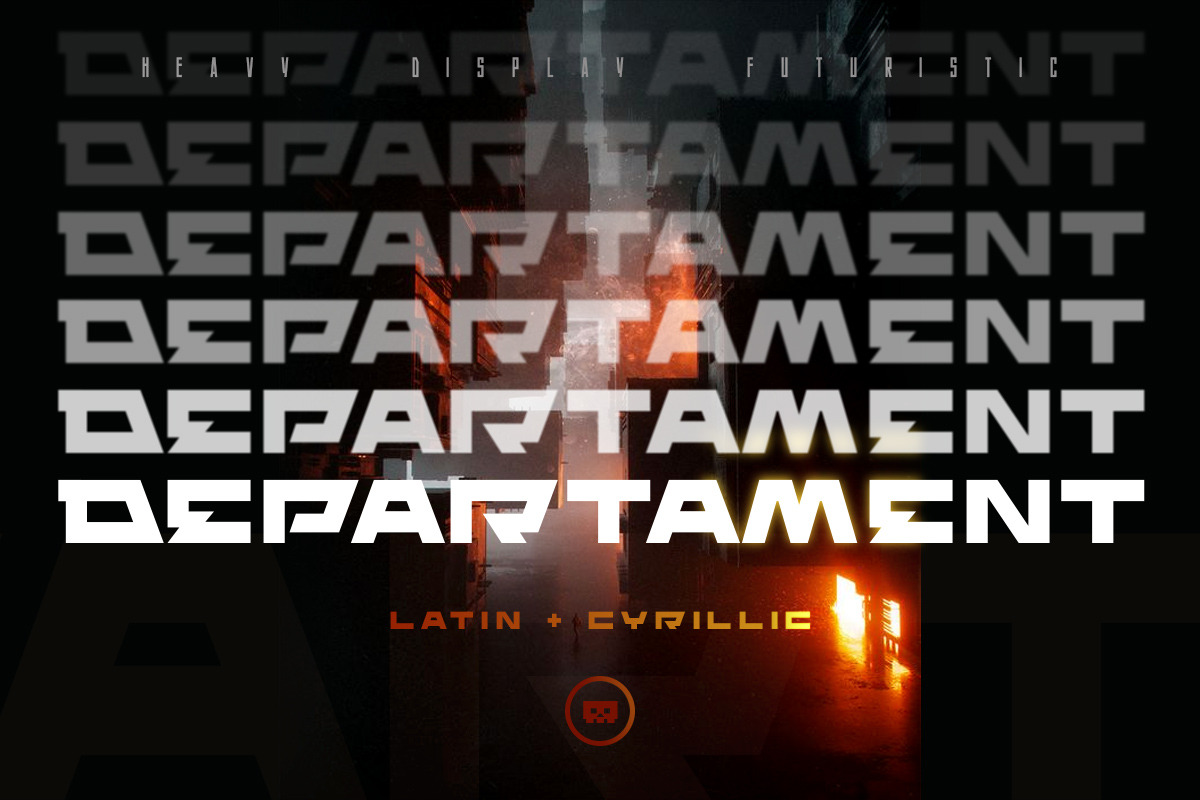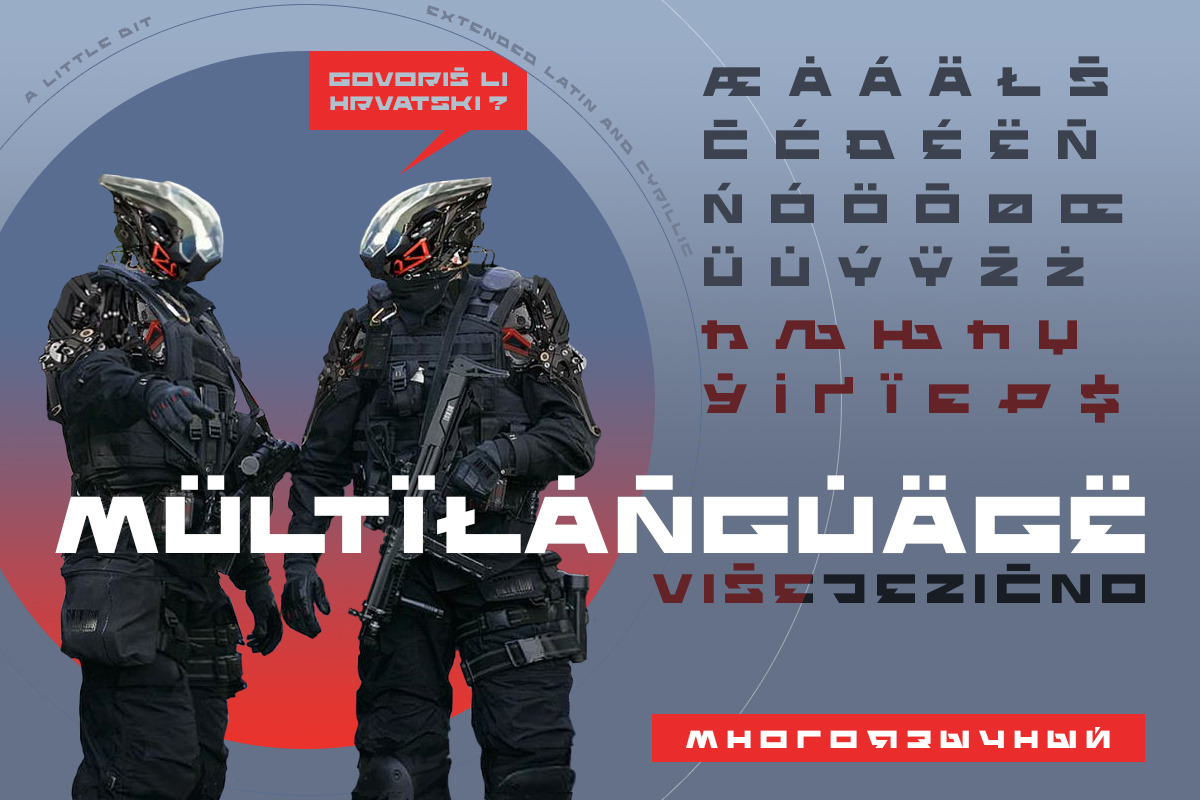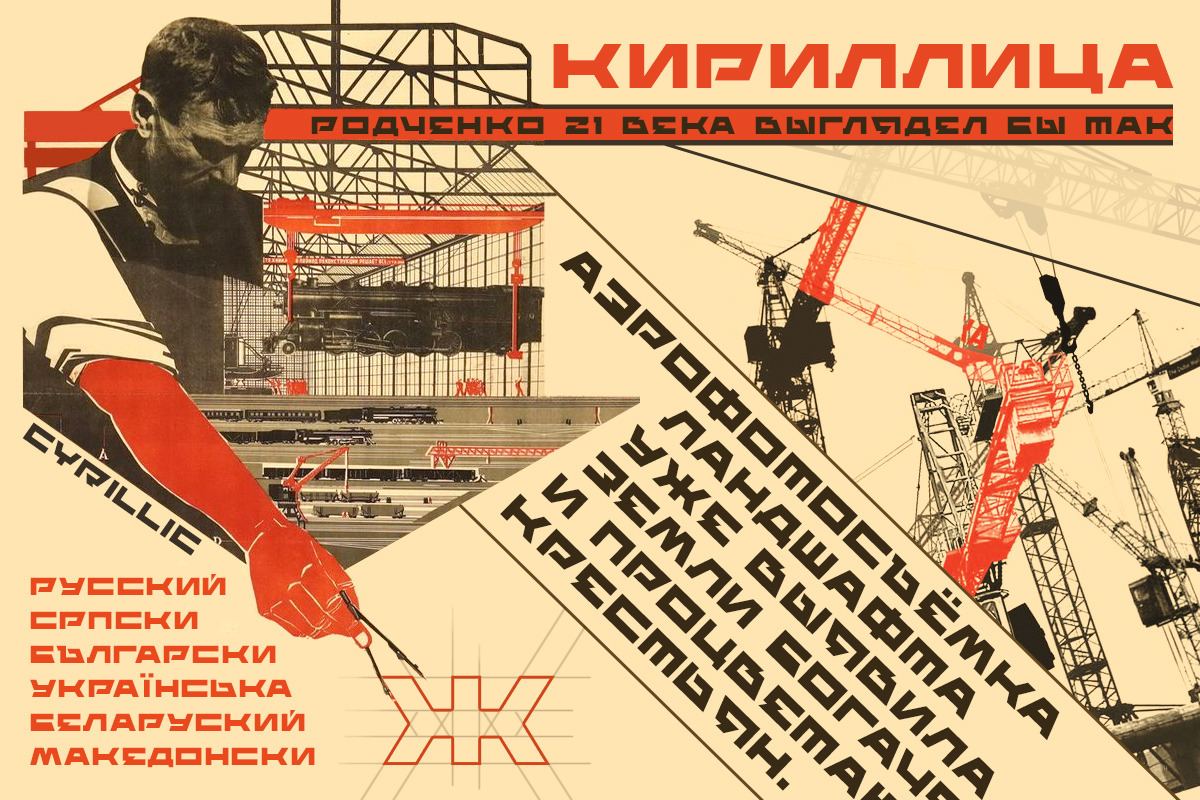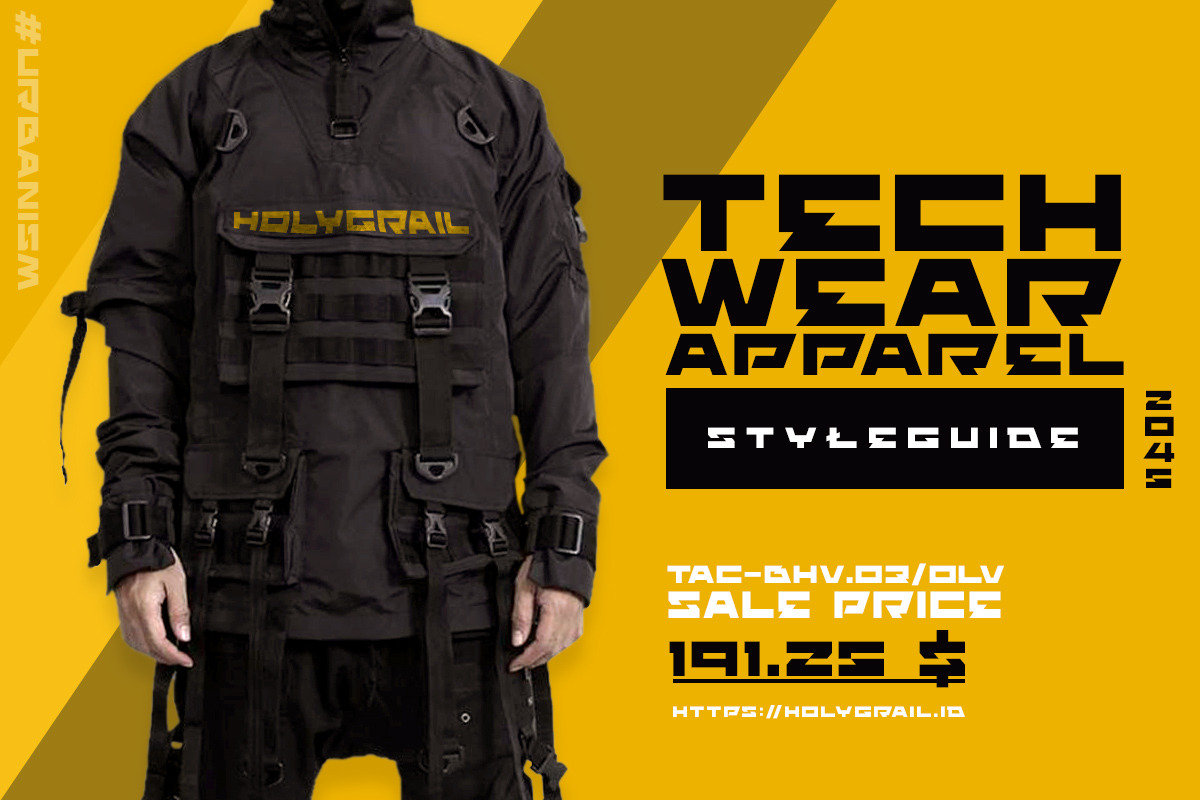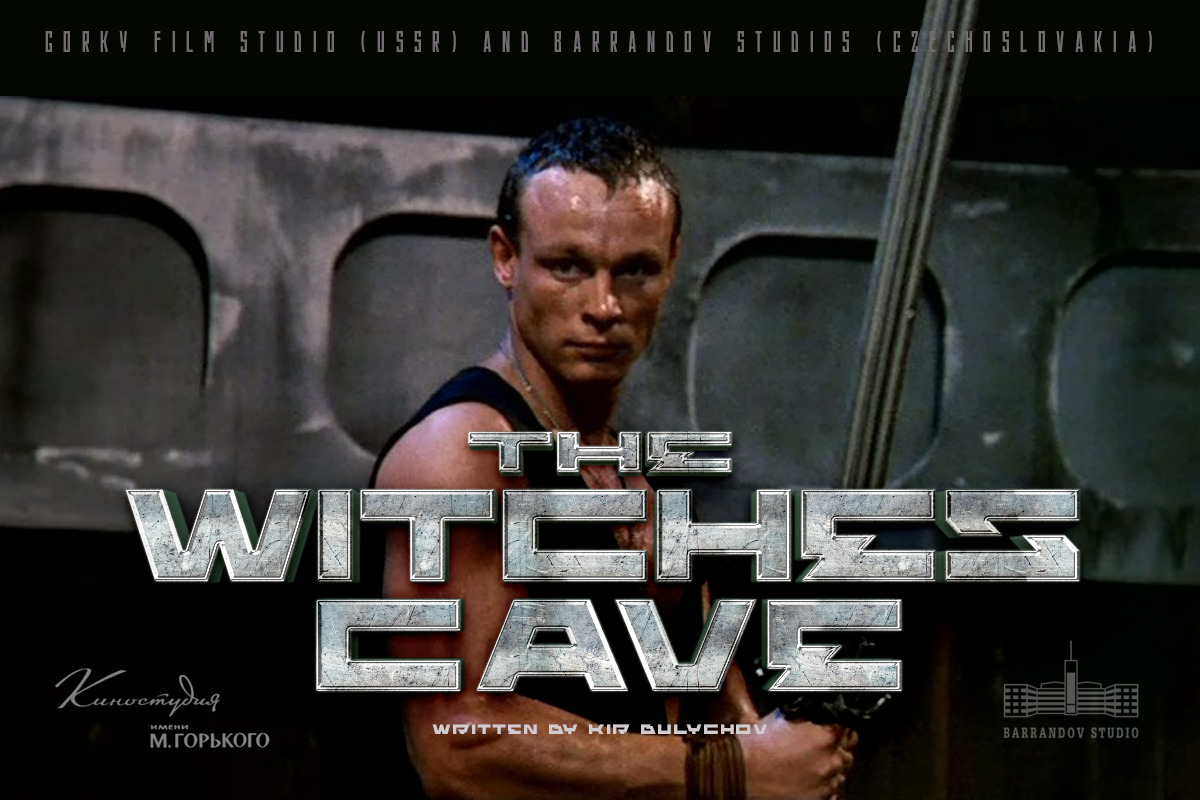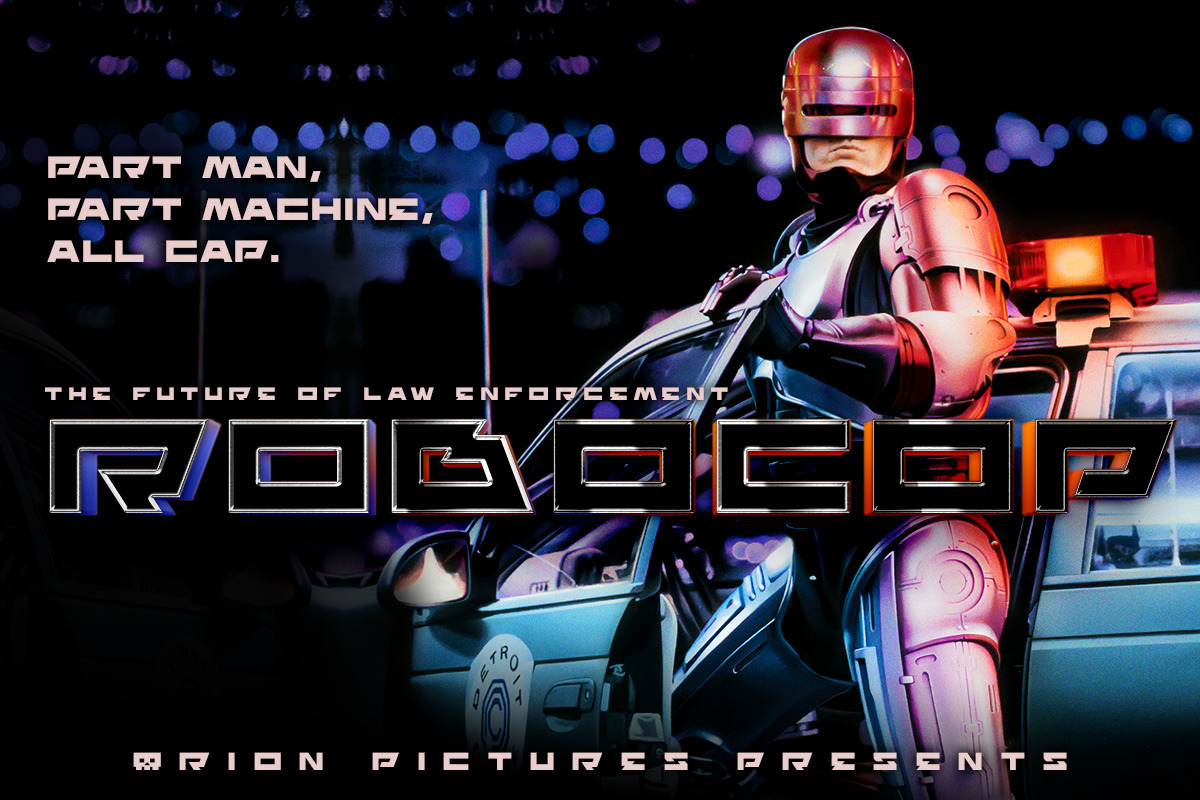
ST-Departament 80-90s sci-fi font
ST-DEPARTAMENT (Department) is a retro futuristic typeface in small caps formats. Font inspired by futuristic design poster movement and retro soviet posters. The font has a minimal and big vibe, sharp and heavy, and look like a sci-fi movie titles from 80-90s.
ST-DEPARTAMENT includes small caps in latin and cyrillic letters, numbers and basic punctuations.